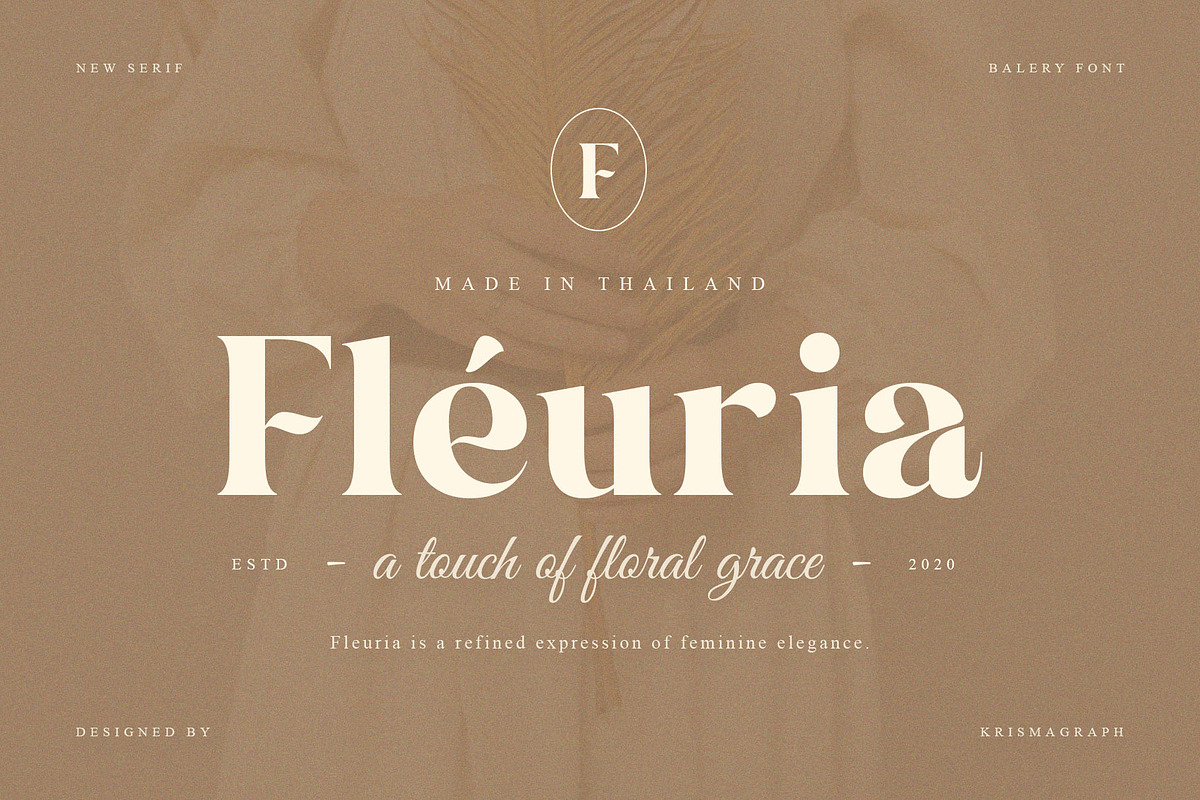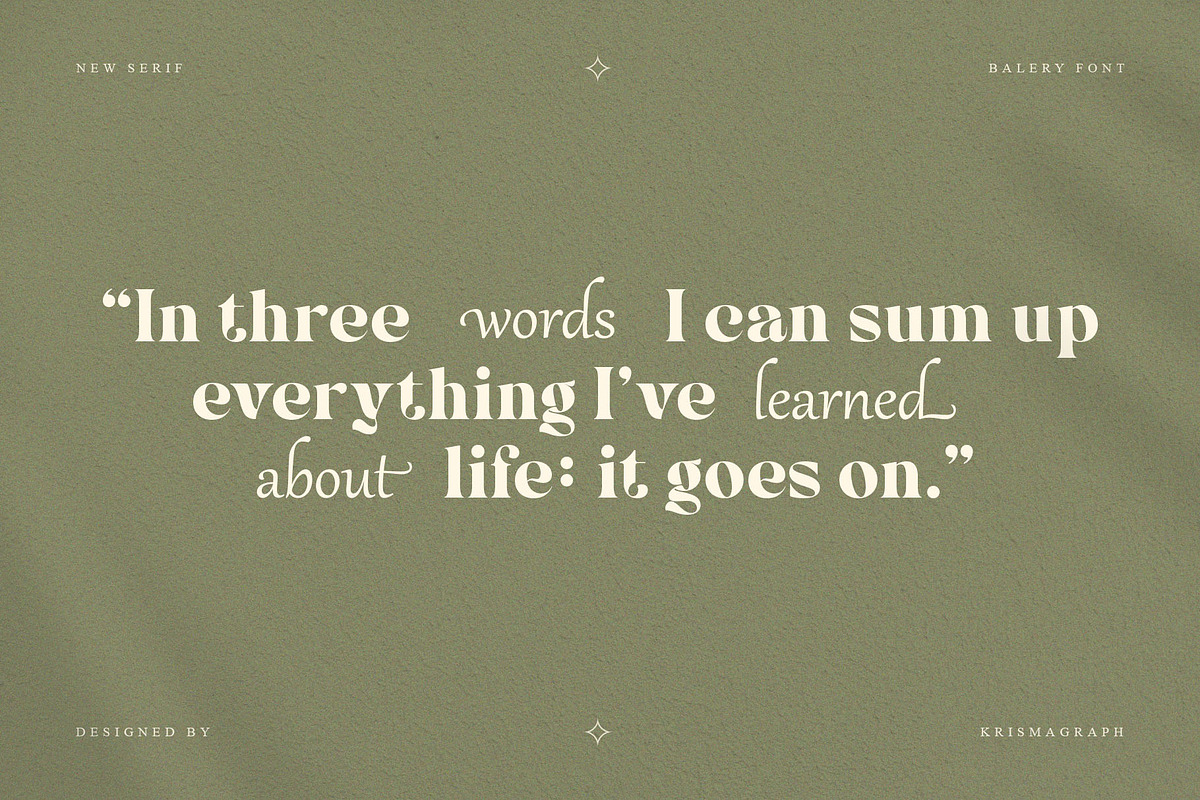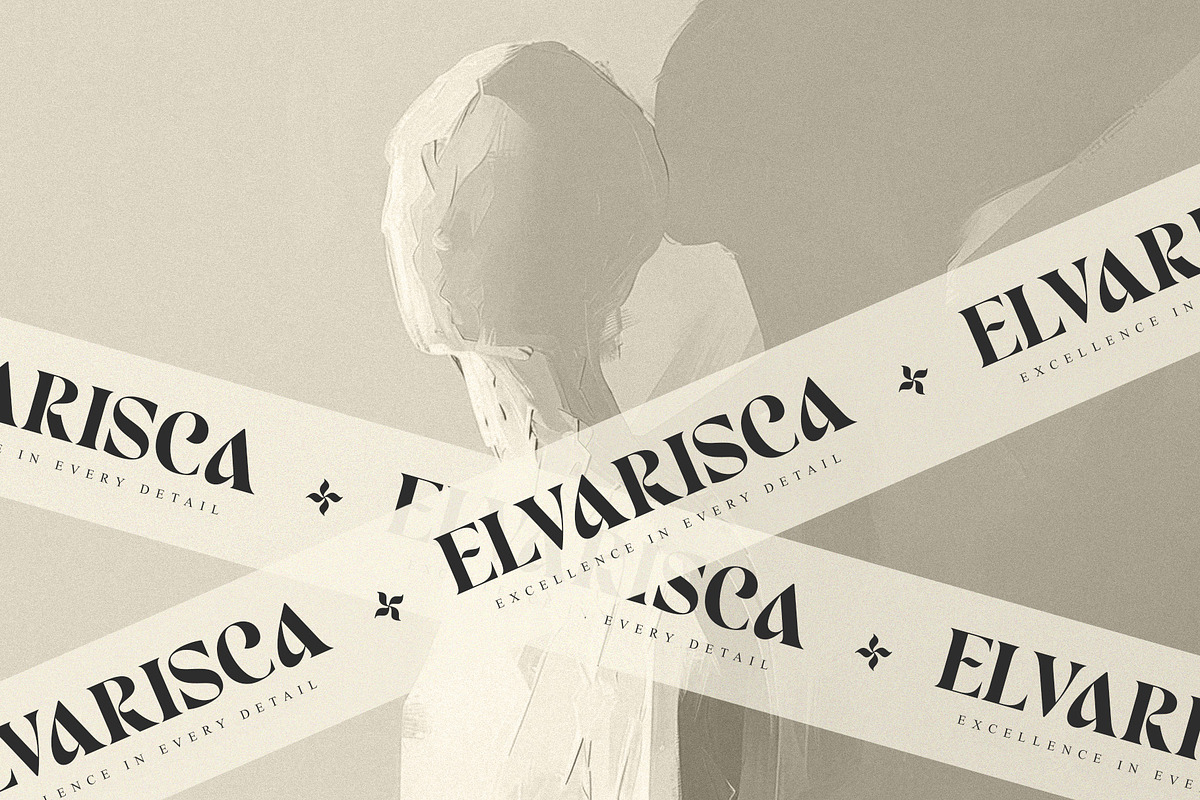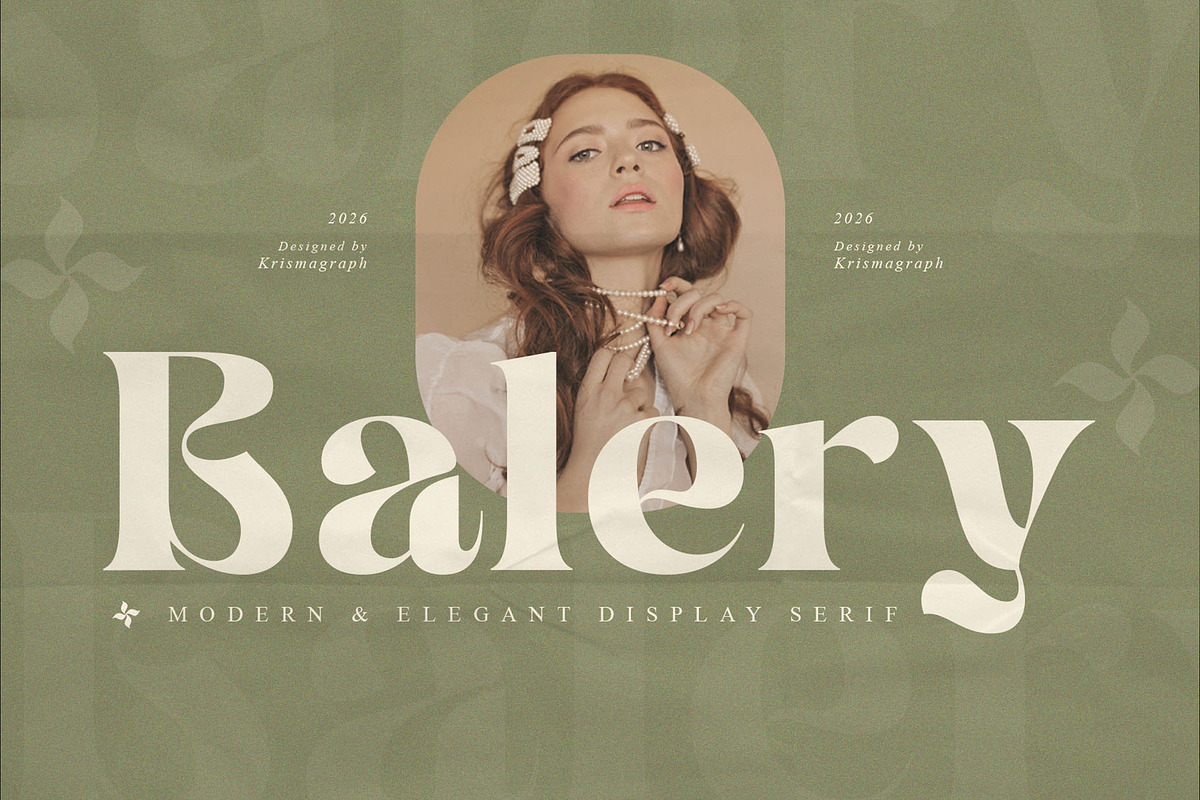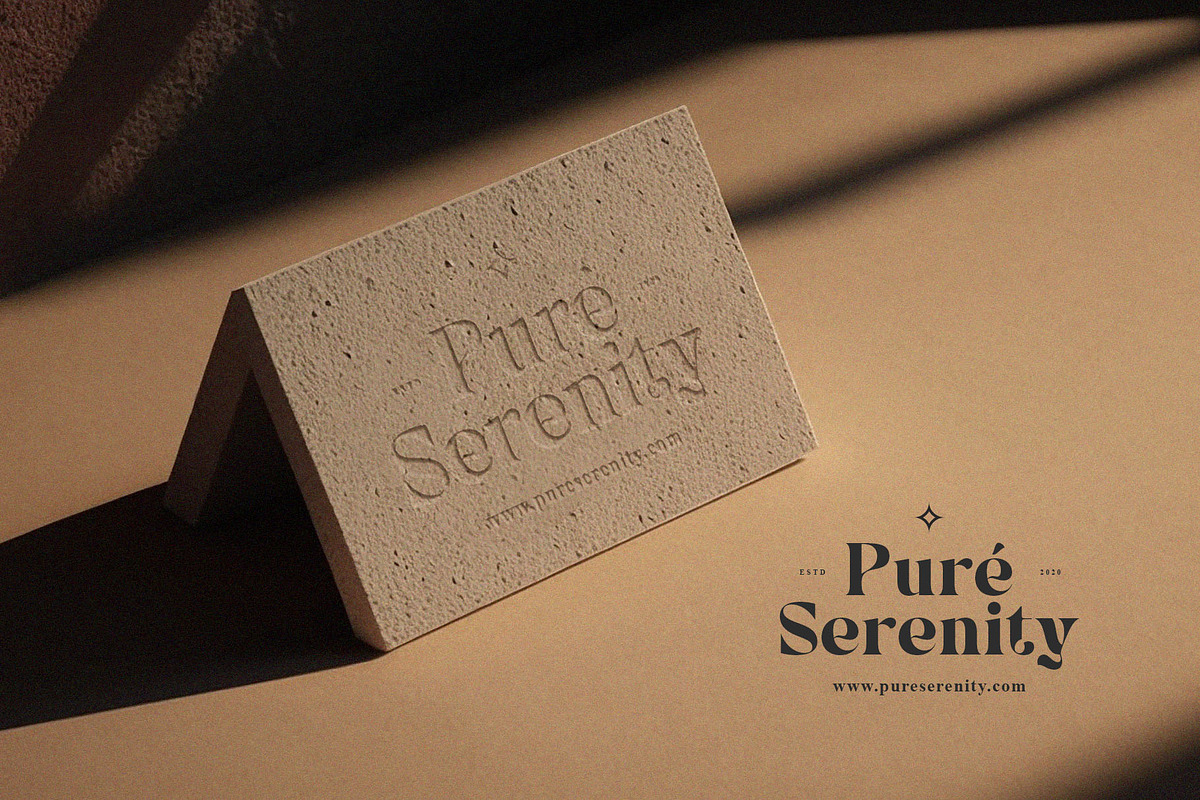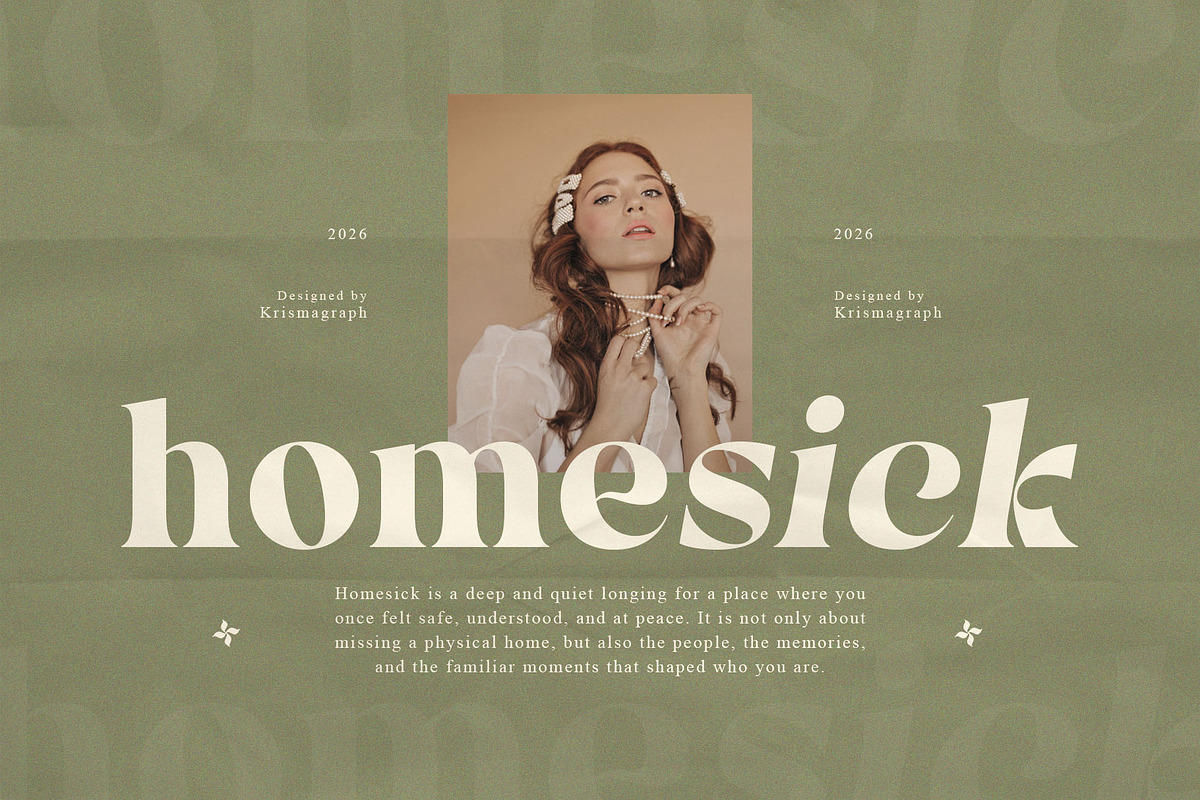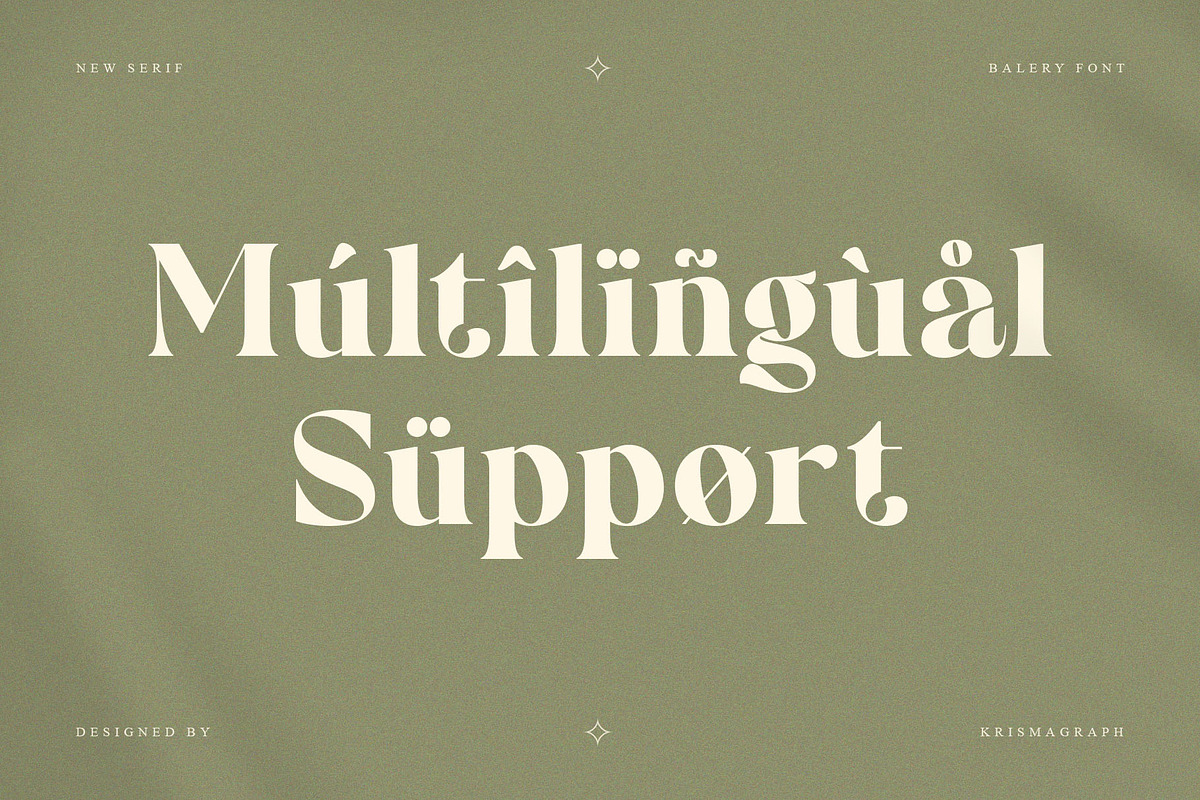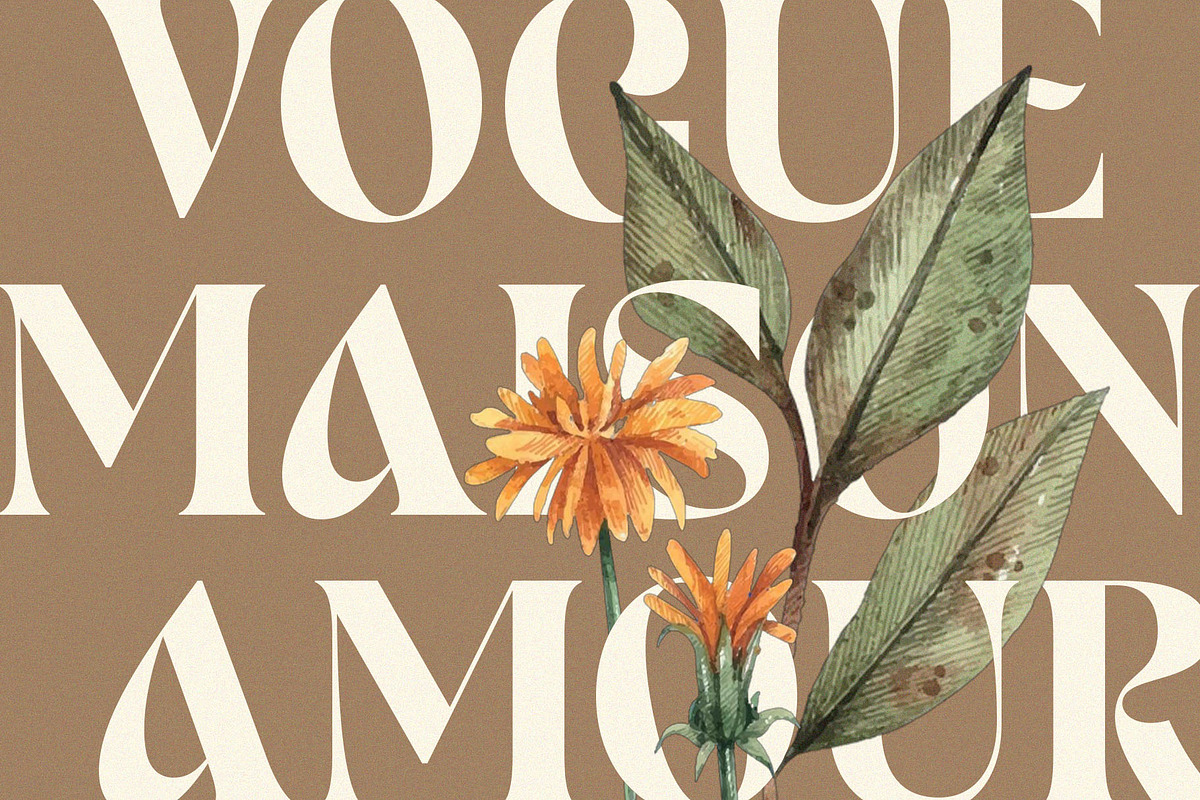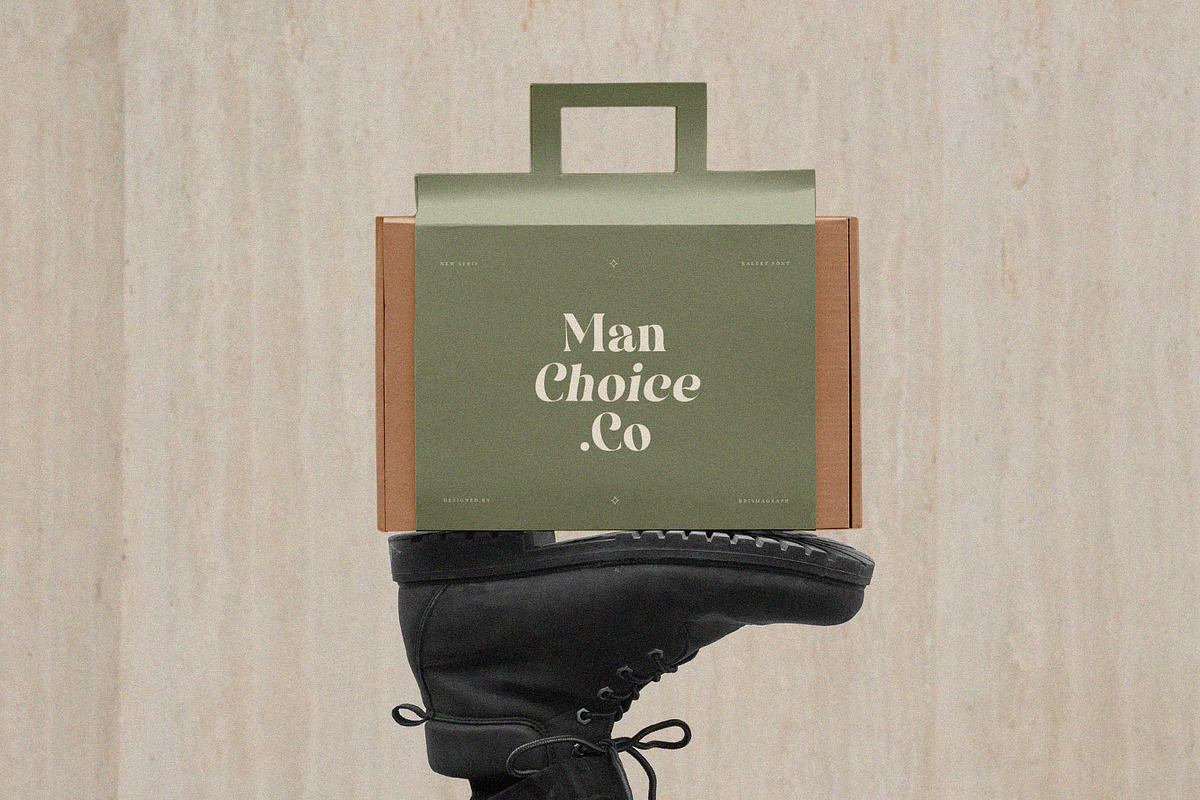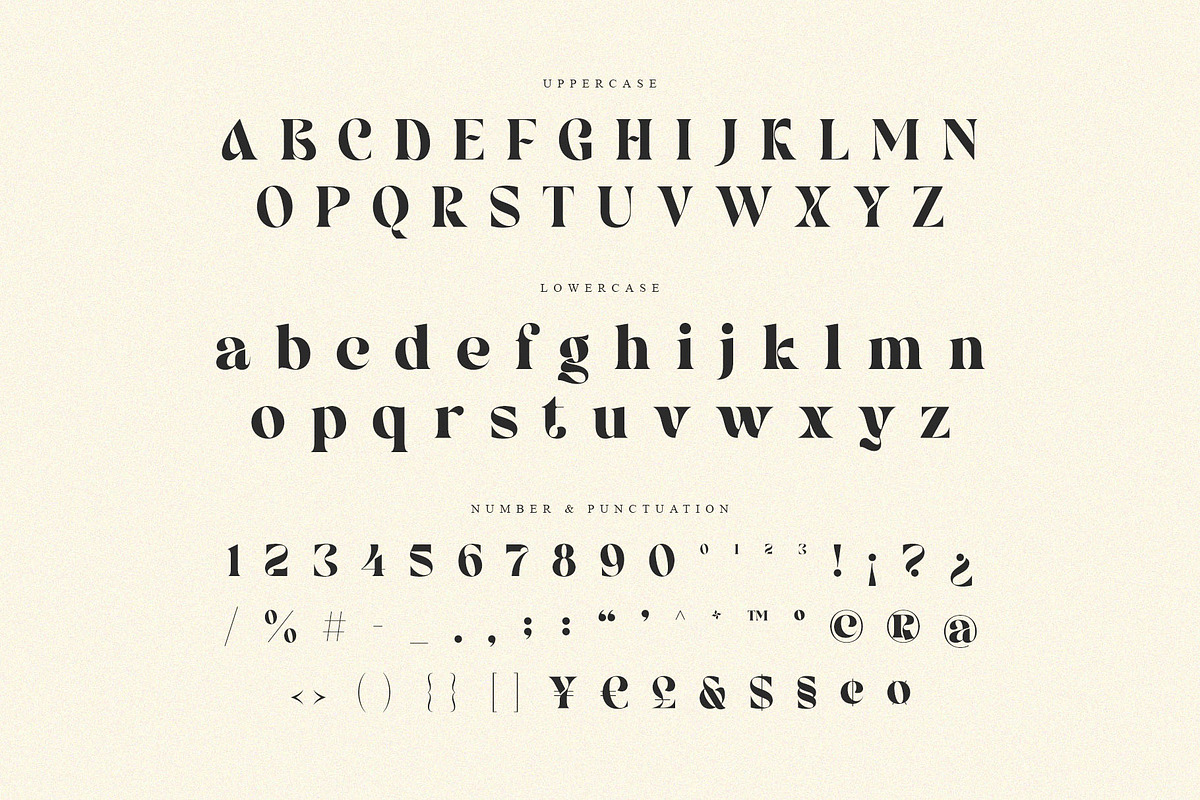
Balery – Modern & Elegant Serif
Balery is a modern and elegant display serif font that blends graceful curves, refined contrast, and distinctive letterforms into a sophisticated typographic experience. Designed with a timeless aesthetic and contemporary character, Balery delivers a luxurious and expressive presence that instantly elevates any visual composition.
Its beautifully balanced proportions and stylish details make Balery ideal for branding projects, logos, editorial layouts, packaging, website headers, posters, invitations, social media graphics, and premium print materials. The font's display-oriented design creates strong visual impact while preserving elegance and readability.
Balery is crafted for designers who seek a serif display font that feels modern, feminine, and refined. Whether used in bold headlines or elegant branding applications, Balery brings a sense of sophistication and personality to every project.
Lowercase
Ligature & alternates
Ideal for large headlines & displays
High-contrast elegant serif style
Numerial